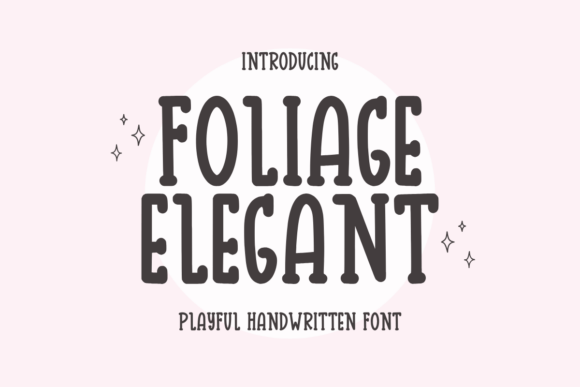
Foliage Elegant Font: Elevate Your Crafts and Designs with a Touch of Whimsy
In the world of crafting, designing, and DIY projects, the right font can make all the difference. It’s not just about conveying a message; it’s about adding a personality to your work that resonates with your audience. This is where the Foliage Elegant Font comes into play. A fun, playful, and incredibly versatile font, Foliage Elegant is perfect for a wide range of applications, from crafts and planners to KDP, stickers, greeting cards, and more. In this article, we’ll dive deep into the features of the Foliage Elegant Font, its suitability for various projects, and why it’s a favorite among crafters, designers, and makers.
Key Features of Foliage Elegant Font
- Playful and Friendly Style: The Foliage Elegant Font boasts a cute and friendly appearance that instantly adds a whimsical touch to any project.
- Versatility: Whether you’re working on crafts, planners, KDP projects, stickers, or greeting cards, this font fits right in.
- Ease of Use: The font is easy to read and use, making it accessible for crafters and designers of all skill levels.
Ideal Projects for Foliage Elegant Font
The Foliage Elegant Font’s adaptability makes it an excellent choice for numerous types of projects. Here are some of the ideal applications:
- Crafts: From handmade cards to decorative items, add a personal touch with this elegant font.
- Planners and Organizers: Enhance your planners with a stylish and functional font that’s easy to read.
- KDP (Kindle Direct Publishing): Create eye-catching book covers and interior designs that stand out in the market.
- Stickers and Labels: Perfect for custom stickers and labels for personal use or business promotions.
- Greeting Cards: Add a touch of elegance and whimsy to your handmade or commercial greeting cards.
Why Crafters, Designers, and Makers Love Foliage Elegant
Crafters, designers, and makers are always on the lookout for elements that can give their projects a unique edge. Hereβs why the Foliage Elegant Font has become a favorite:
- Uniqueness: The font offers a distinctive style that sets projects apart from the more traditional or generic fonts.
- Emotional Connection: Its playful and friendly style helps create an emotional connection with the audience, making projects more relatable and engaging.
- Flexibility: It works well in both digital and print formats, offering flexibility across different mediums.
Tips and Tricks for Using Foliage Elegant Font
To maximize the potential of the Foliage Elegant Font, consider the following tips:
- Mix and Match: Don’t be afraid to combine Foliage Elegant with other fonts to create a unique contrast.
- Adjust Size and Color: Experiment with different sizes and colors to match the tone of your project.
- Use in Combination with Images: The font pairs well with illustrations and photographs, enhancing visual appeal.
- Consider Readability: While it’s playful, ensure the font remains readable, especially for body text.
The Foliage Elegant Font is more than just a typeface; it’s a creative tool that can elevate your crafts, designs, and DIY projects to new heights. Its playful, friendly style, combined with its versatility and ease of use, makes it an indispensable asset for crafters, designers, and makers. Whether you’re a seasoned professional or a hobbyist looking to add a personal touch to your work, Foliage Elegant is sure to inspire and enhance your creative journey.